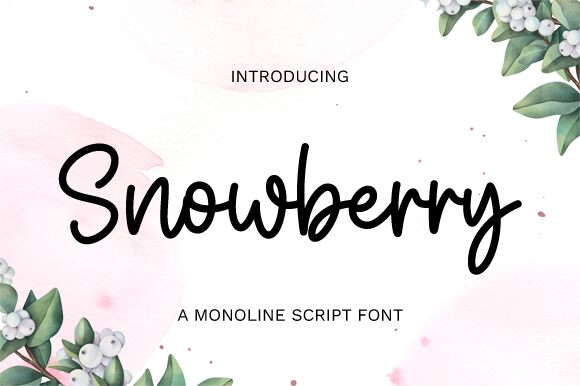
Snowberry
Snowberry, a creation by Graphix Line Studio, is a handwritten font that captures the essence of personal touch in each semi-light stroke. Its aesthetic appeals to those seeking a blend of elegance and casual flair, making it perfect for a wide range of creative endeavors. Whether it's for branding projects, invitations, or product packaging, Snowberry adds a touch of sophistication without compromising on warmth and approachability.
Its unique characteristics stem from its fluidity—mimicking the natural variation found in human handwriting—while maintaining consistency that ensures readability across various applications. The style exudes charm and character, inviting designers to explore its potential in infusing their work with personality and distinction.